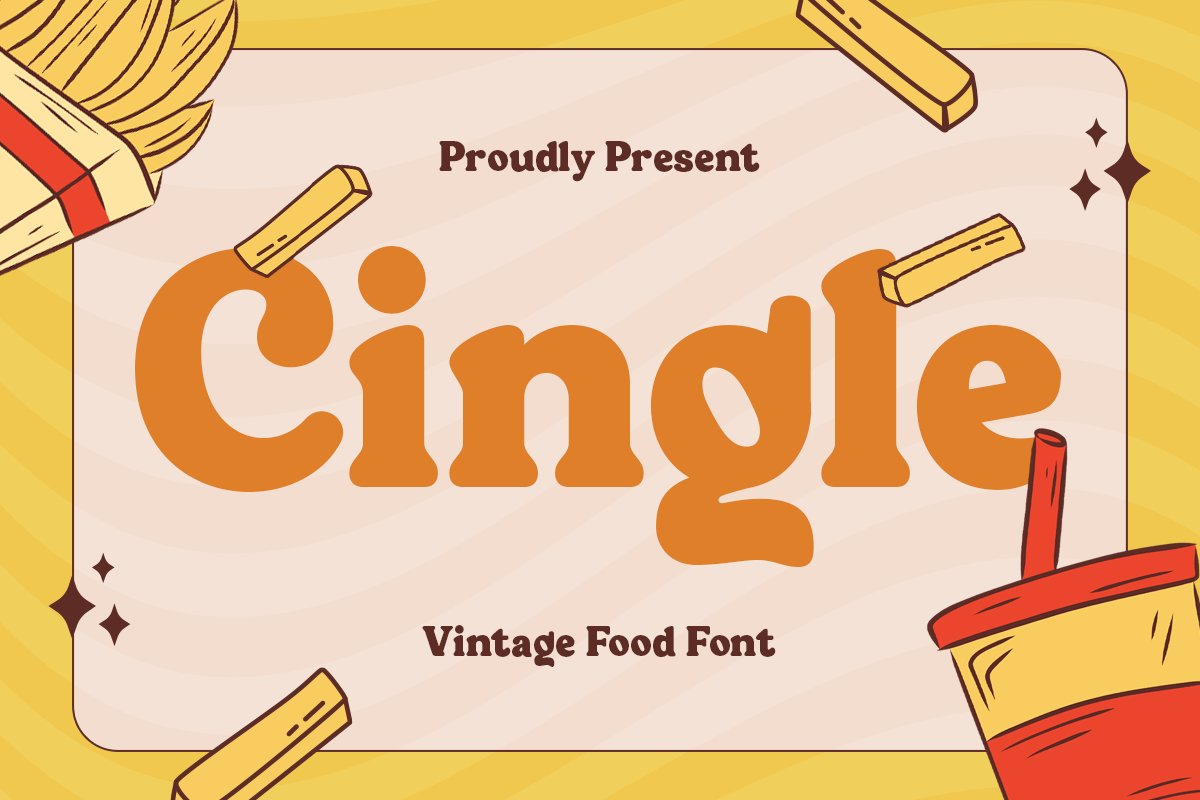
Cingle
-Vintage Food FontCingle - Vintage Food Font
Cingle is a beautifully crafted vintage food font designed to bring warmth and nostalgia to your culinary projects. Inspired by classic signage, retro food packaging, and old-school restaurant branding, Cingle delivers a timeless charm that enhances any design. With its rich and organic feel, this font is perfect for food-related visuals, artisanal branding, and rustic menus that need a touch of tradition.
Perfect for Menus, Packaging, and Branding
Whether you're designing a restaurant menu, café signage, or a vintage-style food label, Cingle provides a classic yet fresh look. Its elegant letterforms evoke the aesthetics of traditional bakeries, coffee shops, and gourmet brands. The smooth curves and slightly aged texture make it ideal for capturing the essence of home-cooked meals, handcrafted treats, and premium food products.
Classic, Authentic, and Versatile
Cingle isn't just about aesthetics—it’s about storytelling. It helps you create designs that feel authentic, inviting, and full of character. Perfect for logos, food blogs, posters, and social media graphics, this font works effortlessly across print and digital media. Elevate your brand and give your designs a taste of history with the timeless elegance of Cingle.